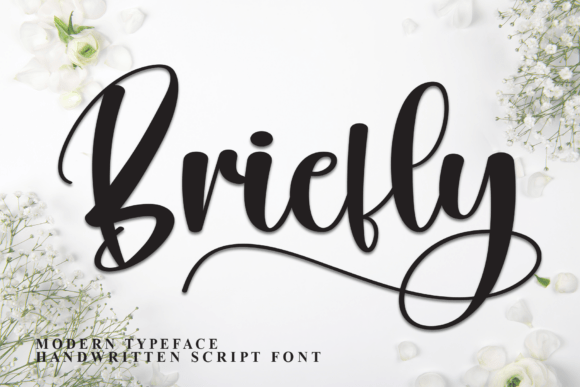
Introducing Briefly Font: The Elegant Handwritten Script Font
In the world of typography, a well-designed font can make all the difference in conveying the tone and personality of a brand or project. One such font that has been making waves in the design community is Briefly Font, a stylish handwritten script font that embodies elegance and playfulness in every stroke.
Briefly Font is a beautiful, flowing script font that is designed to add a personal, charming touch to various design projects, including invitations, branding, and social media. Its natural rhythm and effortless curves make it an excellent choice for designers looking to infuse their work with warmth, sophistication, and creativity.
Key Features of Briefly Font
- Elegant Handwritten Script: Briefly Font boasts a stylish, handwritten script that exudes elegance and refinement.
- Flowing Curves: The font features flowing curves and a natural rhythm, making it perfect for creating beautiful, eye-catching designs.
- Playful yet Sophisticated: Briefly Font strikes the perfect balance between playfulness and sophistication, making it suitable for a wide range of design projects.
- Highly Versatile: The font can be used for various design applications, including invitations, branding, social media, and more.
Using Briefly Font in Design Projects
Briefly Font is an incredibly versatile font that can be used in a variety of design projects. Here are some ideas on how to incorporate it into your work:
- Invitations: Use Briefly Font to create beautiful, elegant invitations for weddings, parties, and other special events.
- Branding: The font is perfect for creating a unique and memorable brand identity, especially for businesses in the creative, fashion, or lifestyle industries.
- Social Media: Briefly Font can add a touch of personality and whimsy to social media graphics, making them stand out in a crowded feed.
- Packaging: The font can also be used for packaging design, adding a touch of elegance and sophistication to product labels and packaging.
The Benefits of Using Briefly Font
So, why choose Briefly Font for your design projects? Here are some benefits of using this beautiful font:
- Unique and Memorable: Briefly Font is a unique and memorable font that can help your design projects stand out from the crowd.
- Elegant and Sophisticated: The font exudes elegance and sophistication, making it perfect for high-end brands and luxury products.
- Easy to Read: Despite its elegant design, Briefly Font is easy to read, making it suitable for body text and headlines.
- Highly Customizable: The font can be easily customized to fit your brand’s personality and style.
Tips for Using Briefly Font Effectively
To get the most out of Briefly Font, here are some tips to keep in mind:
- Pair it with a Simple Font: Pair Briefly Font with a simple, clean font to create a beautiful contrast and make your design stand out.
- Experiment with Colors: Briefly Font looks great in a variety of colors, so don’t be afraid to experiment and find the perfect hue for your design.
- Use it for Headlines: The font is perfect for headlines and titles, so use it to add a touch of elegance and sophistication to your design.
- Keep it Consistent: Use Briefly Font consistently throughout your design project to create a cohesive and professional look.
In conclusion, Briefly Font is a beautiful, elegant handwritten script font that can add a personal, charming touch to various design projects. Its flowing curves, natural rhythm, and sophisticated design make it an excellent choice for designers looking to infuse their work with warmth, sophistication, and creativity.
Whether you’re designing invitations, branding materials, or social media graphics, Briefly Font is a versatile and highly customizable font that can help you achieve your design goals. So, why not give it a try and see how it can elevate your design projects?